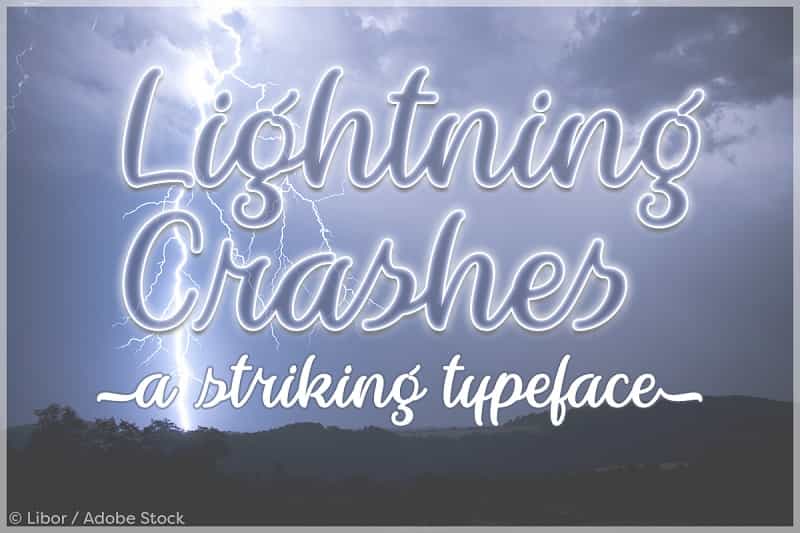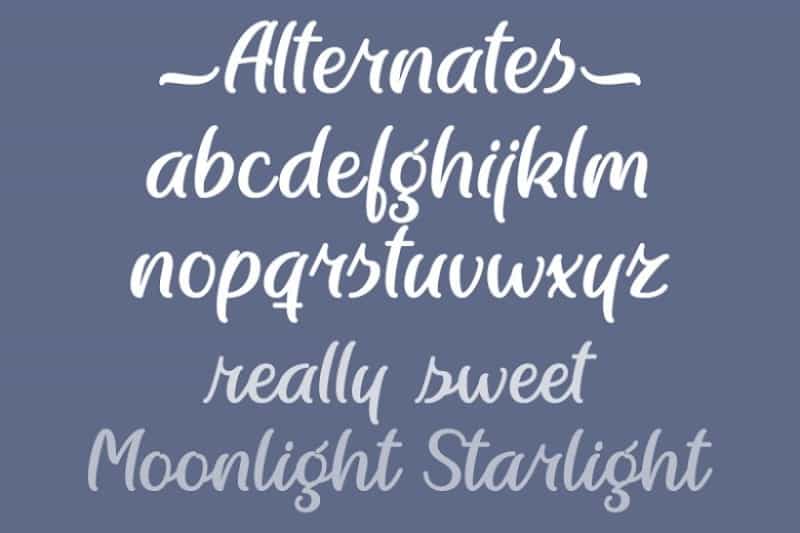
So named because “Lightning Crashes” seems casual and even handwritten in design mellowed by its smooth curves that merge several styles but do not disrupt the harmony of the whole typeface.